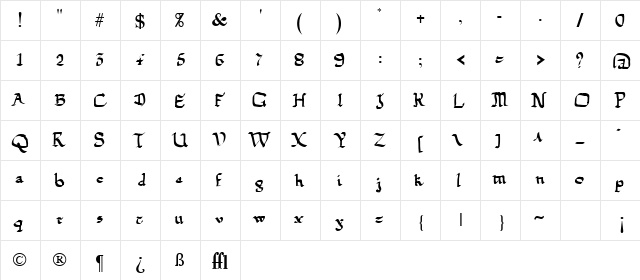
Jumbles OE
Design Context for Jumbles Typeface
Jumbles is a composed and adaptable typeface that performs quietly and consistently across a wide range of design contexts.